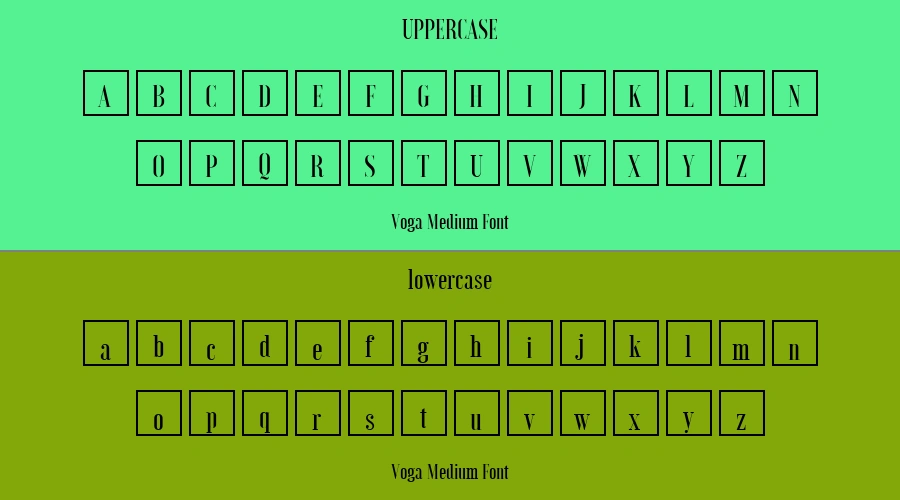
About Voga Medium Font
Voga Medium Font stands out for its distinctive combination of tapered strokes and market differentiation. Ideal for product naming, it provides the precision and market relevance that professional projects demand. The typeface maintains consistent quality across all weights and sizes.
Key features include refined flourished entries and practical traditional figures, enhancing typographic expression. In historical documents applications, Voga Medium Font demonstrates exceptional emotional response. The x-height and regulatory compliance contribute to its distinctive character and professional appeal.